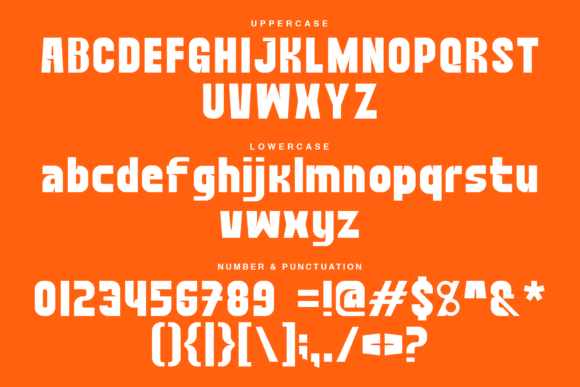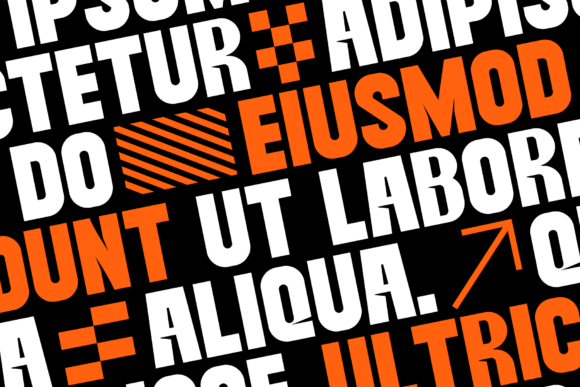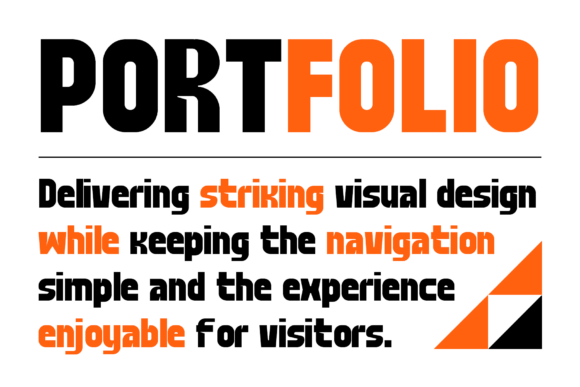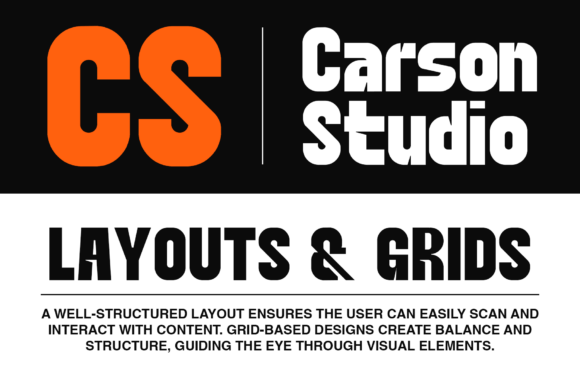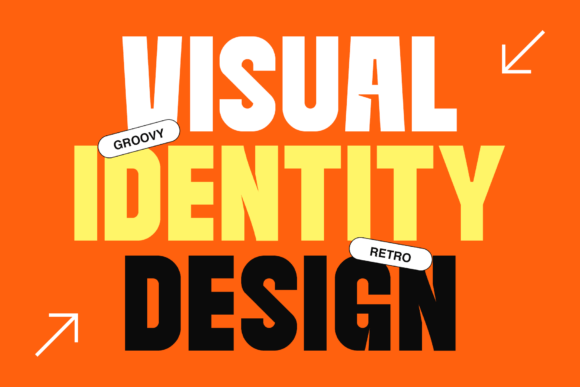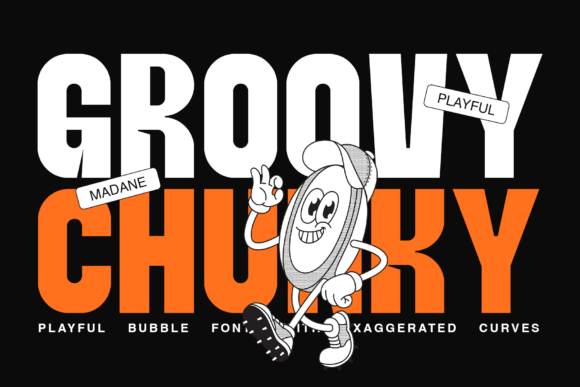
Introduction to Madane Font
You know that moment when everything comes together in a design project and you feel like you’ve hit the jackpot? The colors, the layout, the typography – it all just flows seamlessly. For designers, that’s what makes the difference between a good project and a great one. And it all starts with the right font. That’s where Madane Font comes in – a bold and assertive sans serif font that’s about to take your creative projects to the next level.
Whether you’re working on a logo design, a brochure, or even a website, Madane Font is an incredible asset to have in your design resource arsenal. Its clean lines and modern aesthetic make it perfect for a wide range of creative projects, from high-end business designs to innovative tech concepts. And the best part? It’s available for free download, so you can experiment with it without breaking the bank.
With Madane Font, you can elevate your designs with a high-quality, sans-serif font that’s sure to impress. Plus, with a transparent background, you can easily overlay it on any image or background, giving you endless design possibilities. So, what are you waiting for? Dive into the world of Madane Font and discover the secret to taking your designs to new heights!
Key Features of Madane Font
- High-quality, free font design resource perfect for creative projects
- Transparent background for easy layering and customization
- Single font file with multiple styles and weights for added versatility
- Designed with a modern aesthetic, suitable for various design applications
Honest Review: Madane Font
I recently stumbled upon the Madane Font, and I must say it’s a game-changer for any creative project that requires a unique touch. This font is a valuable design resource that can elevate the visual appeal of your work.
One of the standout features of the Madane Font is its high quality design. It’s crisp, clean, and perfect for use on a transparent background. The font’s sleek lines and modern feel make it an excellent choice for a wide range of creative projects.
- ✨ Great for use on a transparent background
- ⚠️ Limited character set (only includes a few special characters)
Overall, I’m impressed with the Madane Font. It’s a great addition to any designer’s toolkit, and it’s perfect for anyone looking for a high-quality, free font for their creative project.
The Madane Font is a versatile design resource perfect for creative projects. With its high-quality and elegant style, it’s an ideal choice for various applications.
Tips for Getting the Most Out of Madane Font
To maximize the use of Madane Font, experiment with different font sizes, colors, and combinations to create a unique visual identity.
Madane Font is ideal for: